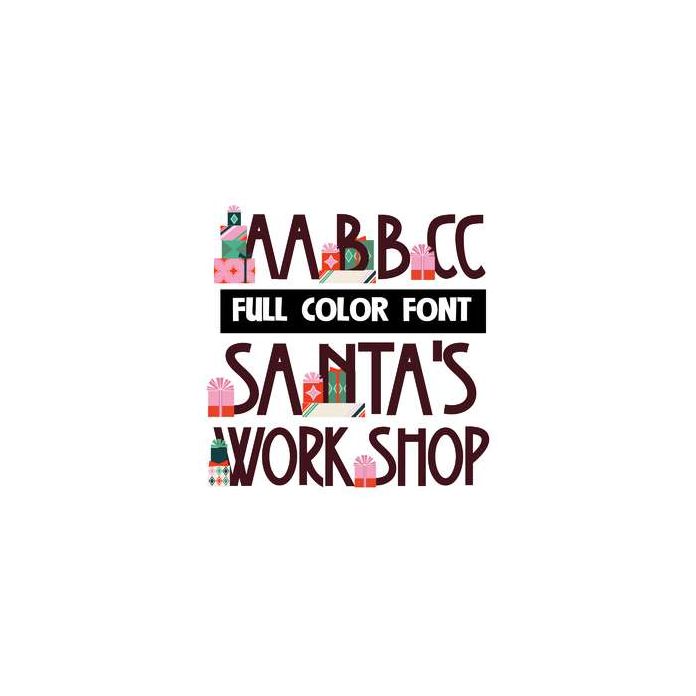
This full-color font features presents on the uppercase. This font works best for titles, displays, posters and more. Please note color fonts will show as black in non compatible programs. This font type is compatible with Silhouette Studio.